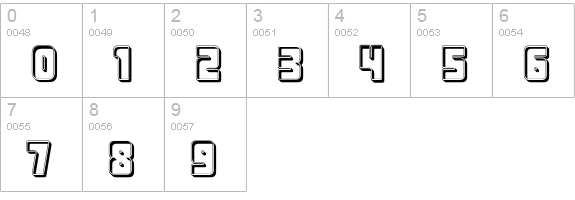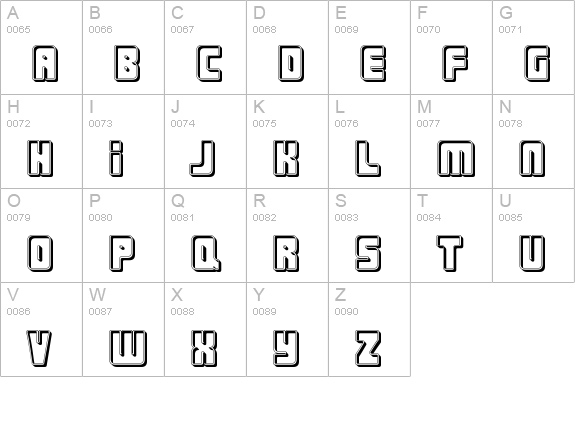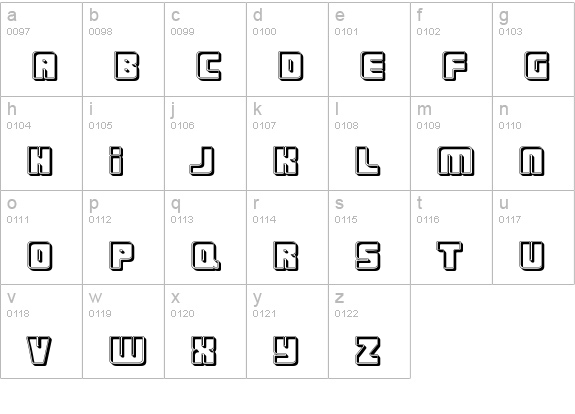
Urban Constructed Cutter font is a modern and edgy typeface that exudes a sense of urban style and sophistication. With its sharp lines and sleek design, this font is perfect for creating eye-catching headlines, posters, and branding materials. The geometric shapes and bold strokes of Urban Constructed Cutter make it a versatile choice for a wide range of design projects. Best of all, Urban Constructed Cutter font is available for free download at FontsMarket.com. Whether you're a graphic designer, brand manager, or creative enthusiast, you can easily access this unique font to elevate your designs and make a lasting impression. Don't miss out on the opportunity to add Urban Constructed Cutter to your font collection today!